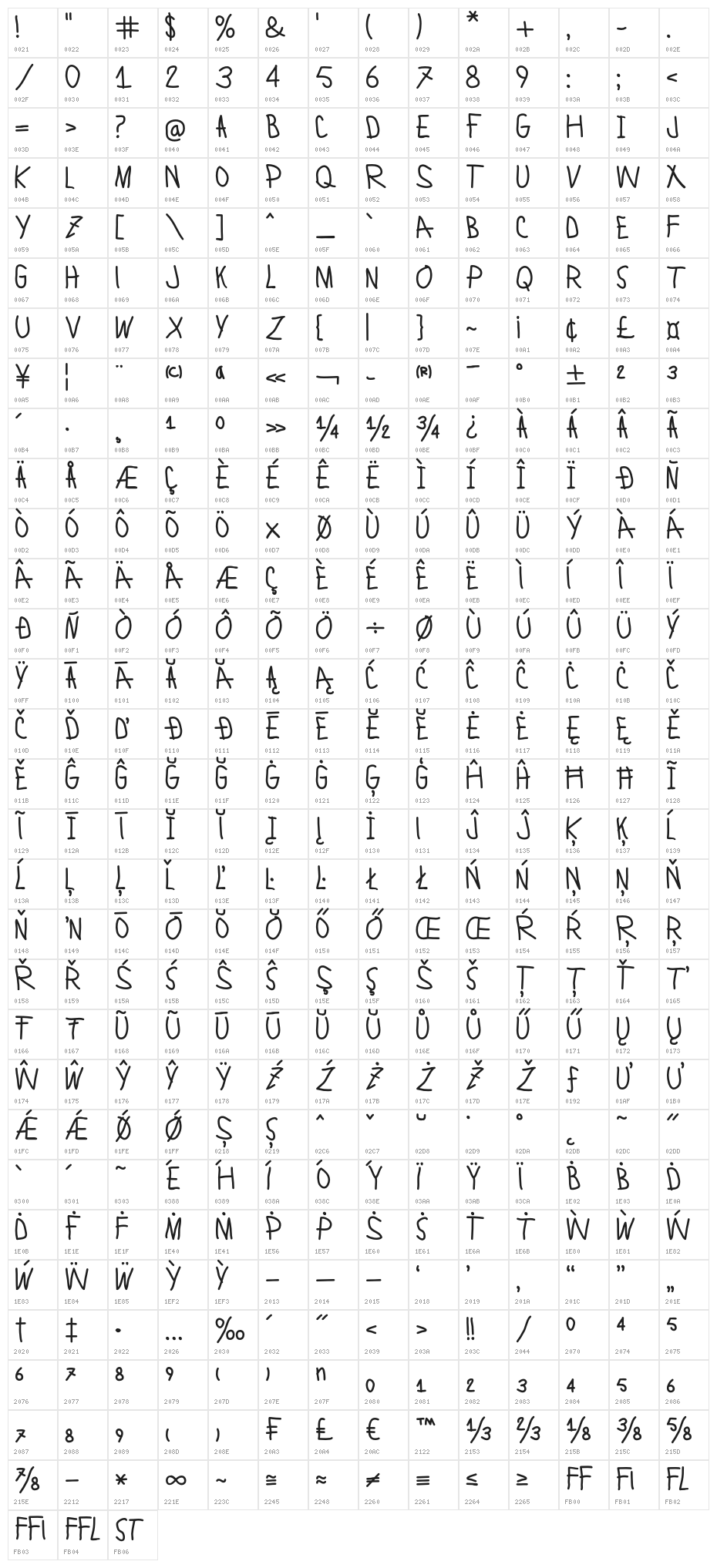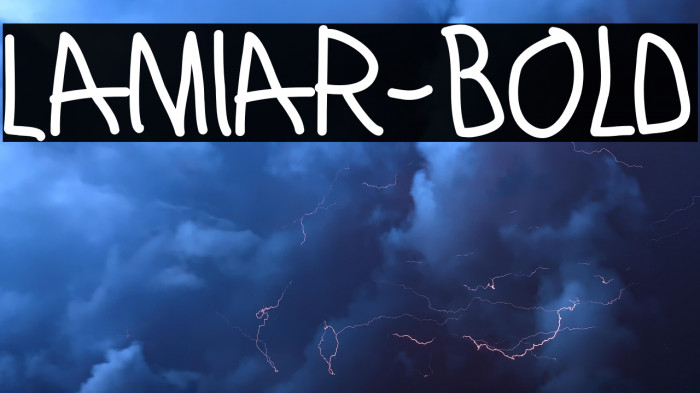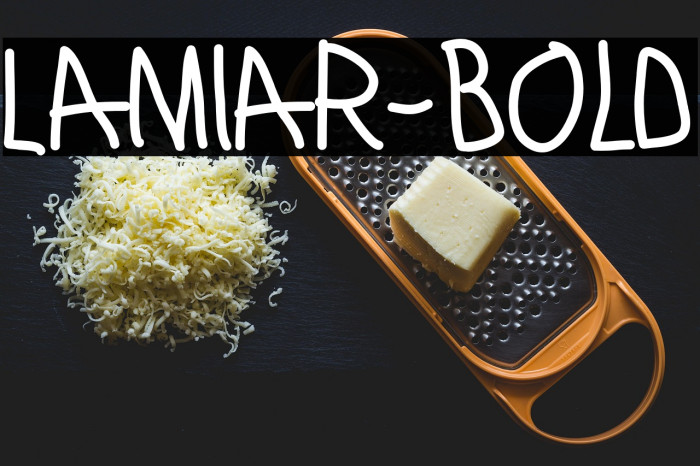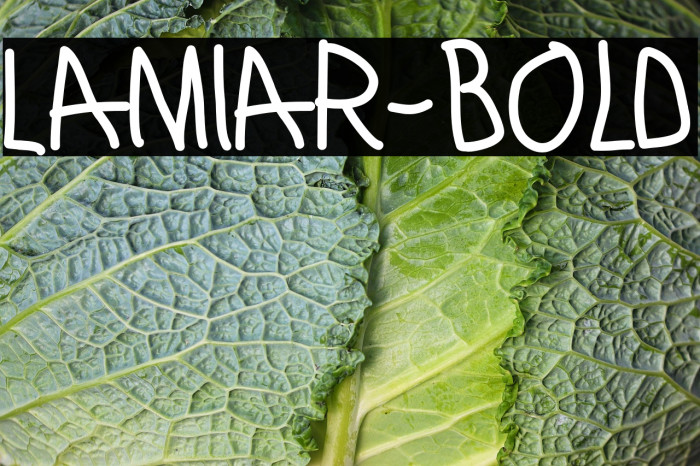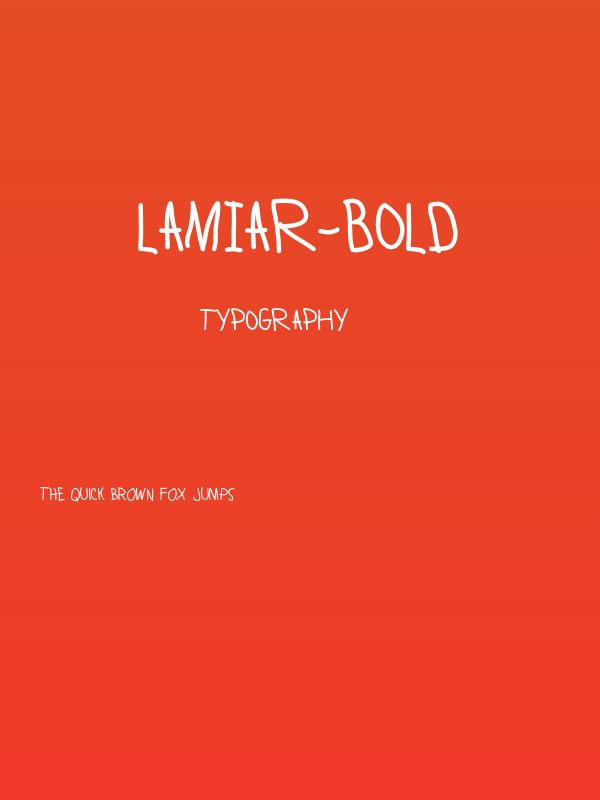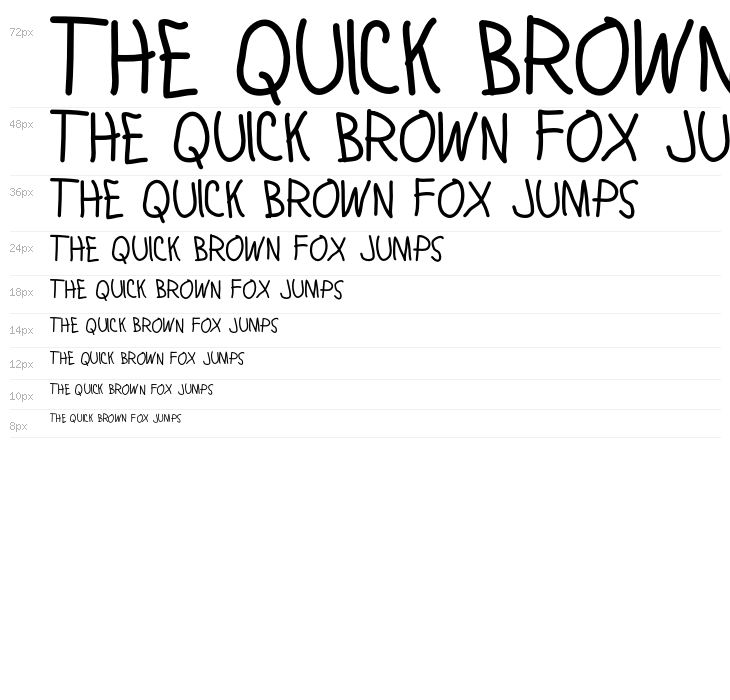
Lamiar-Bold Font
Lamiar-Bold Description
This font features a playful and casual handwritten style with a bold appearance. The characters are slightly irregular, giving it a natural and organic feel. The uppercase and lowercase letters maintain a consistent flow, while the numbers and special characters complement the overall design. The strokes are thick and rounded, adding to the font's approachable and friendly demeanor. This style is perfect for projects that require a personal touch or a relaxed vibe, such as greeting cards, invitations, or children's book covers.
| Proposed Projects | Ideal for greeting cards, invitations, children's books, and playful branding. |